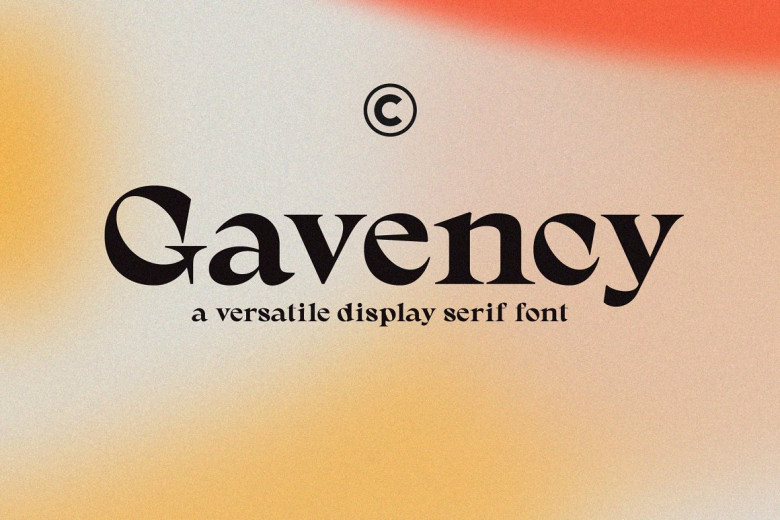
Gavency Font
Introducing Gavency – Display Serif Font. Gavency   is a display typeface that has a unique design. This  sixth  style can be used for various purposes. It has a modern and stylish appearance that can be used for labels, headers, or anything that you need to add a touch of class to your work.
From a graphic designer looking for a font quickly and easily create stunning visuals to an advertising professional in need a bold typeface to represent your brand, Gavency is a stunning choice.
Gavency Display Serif Font